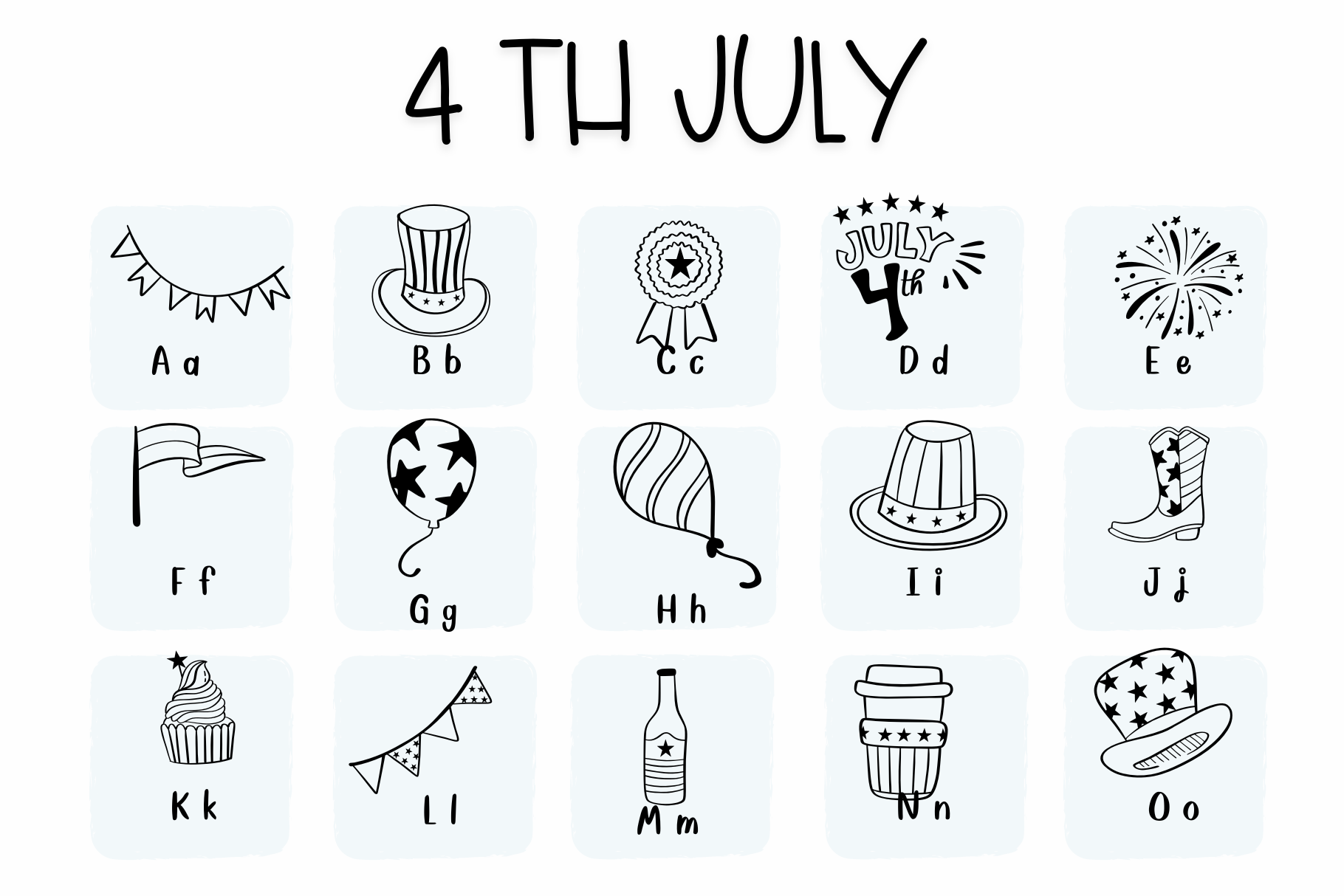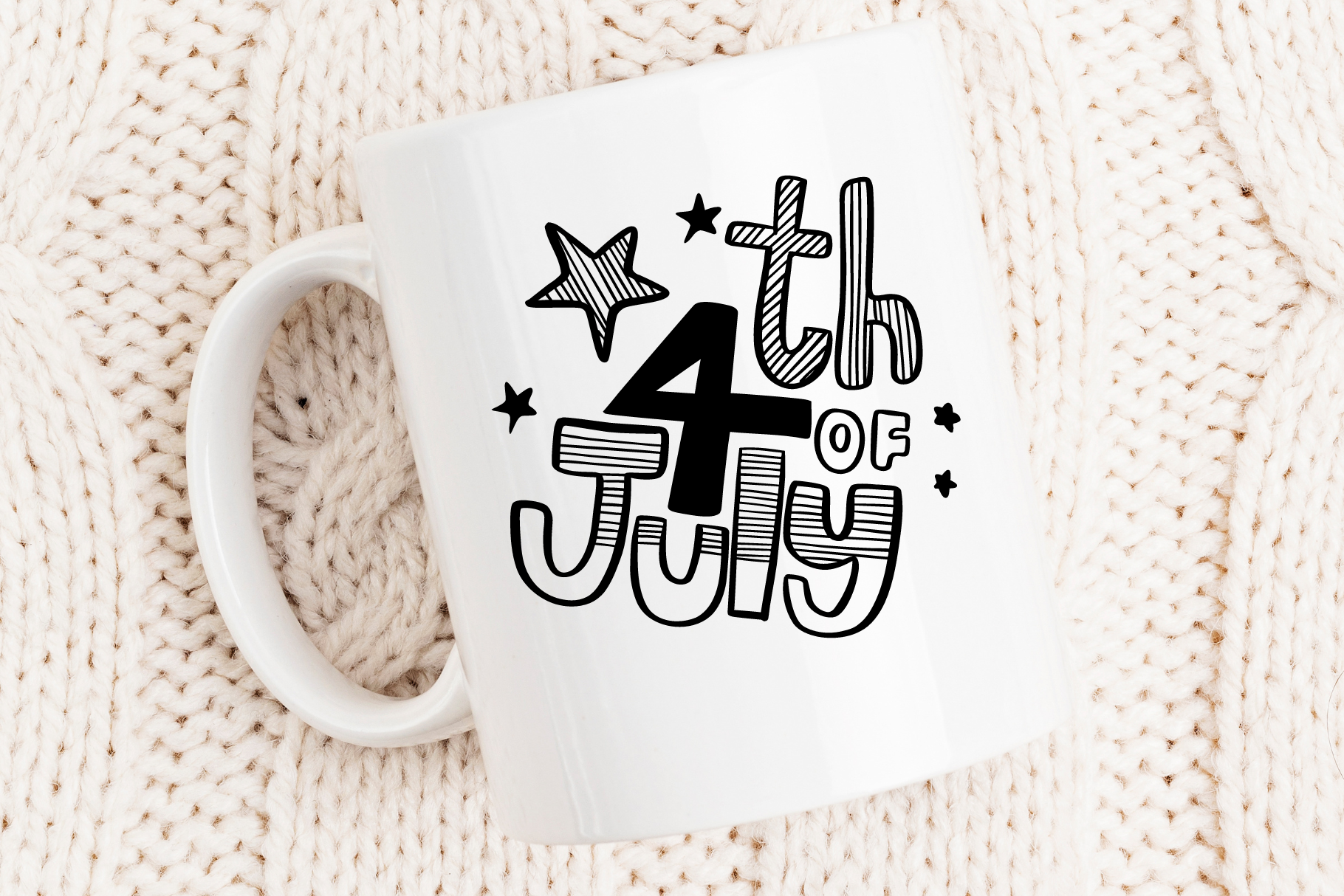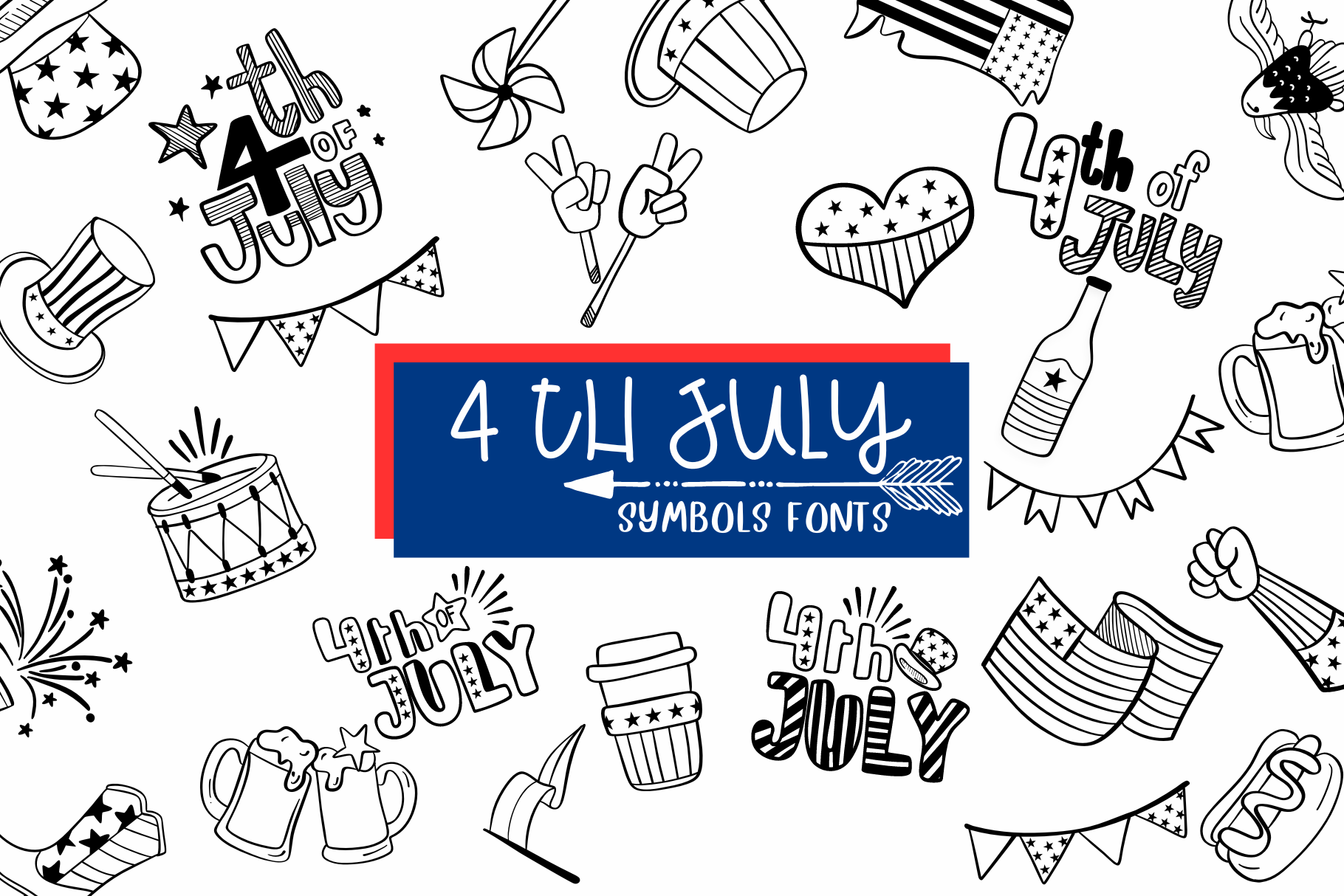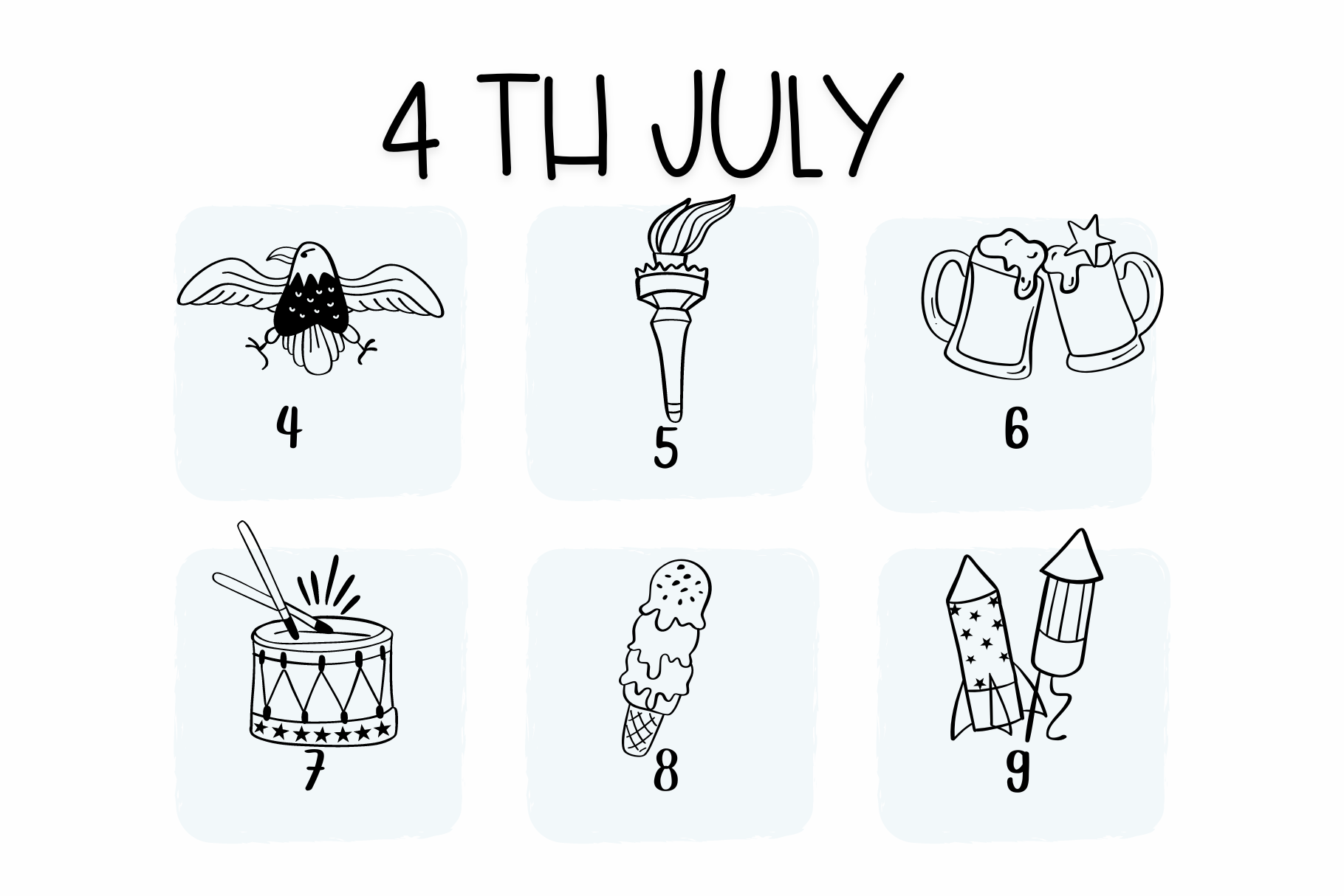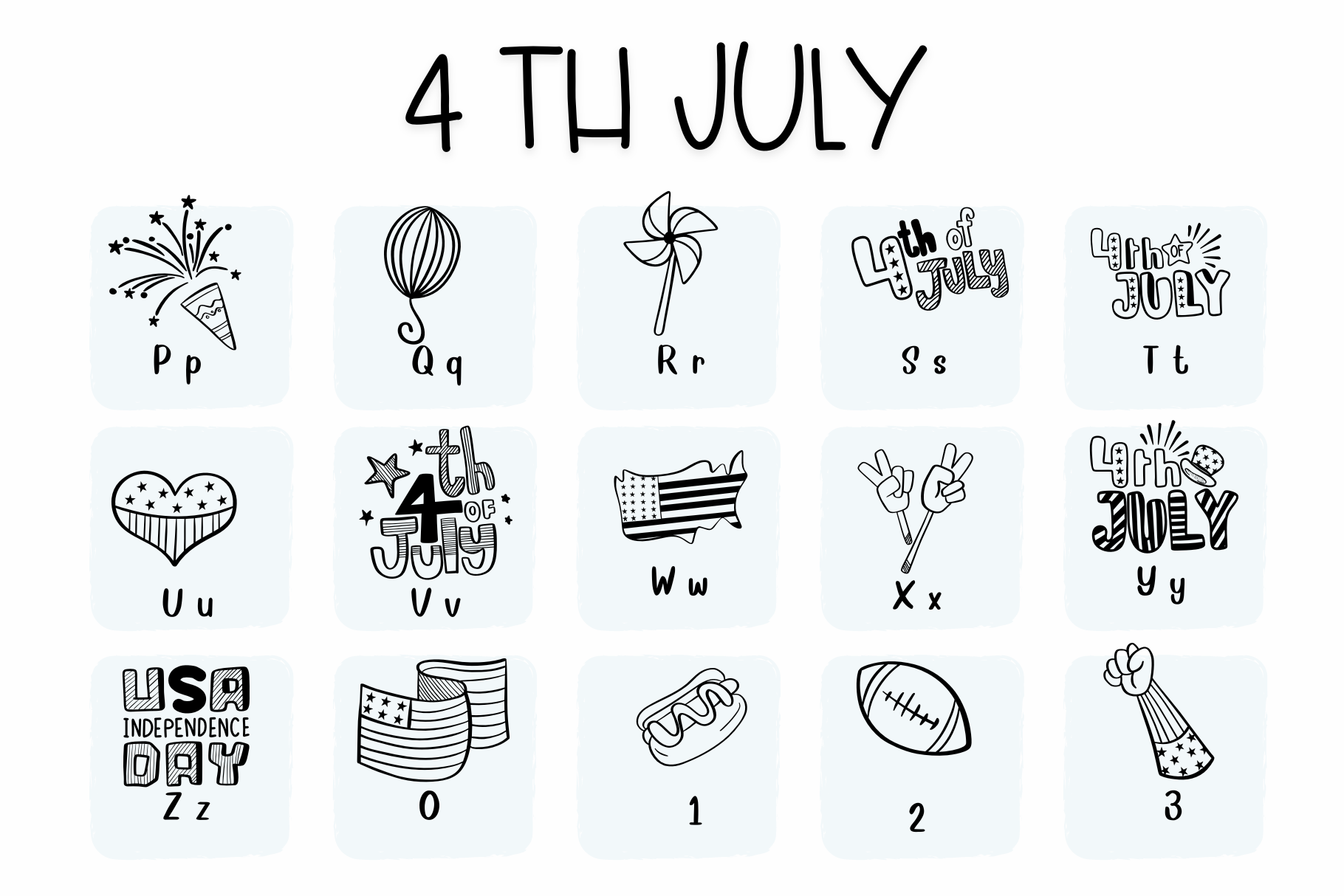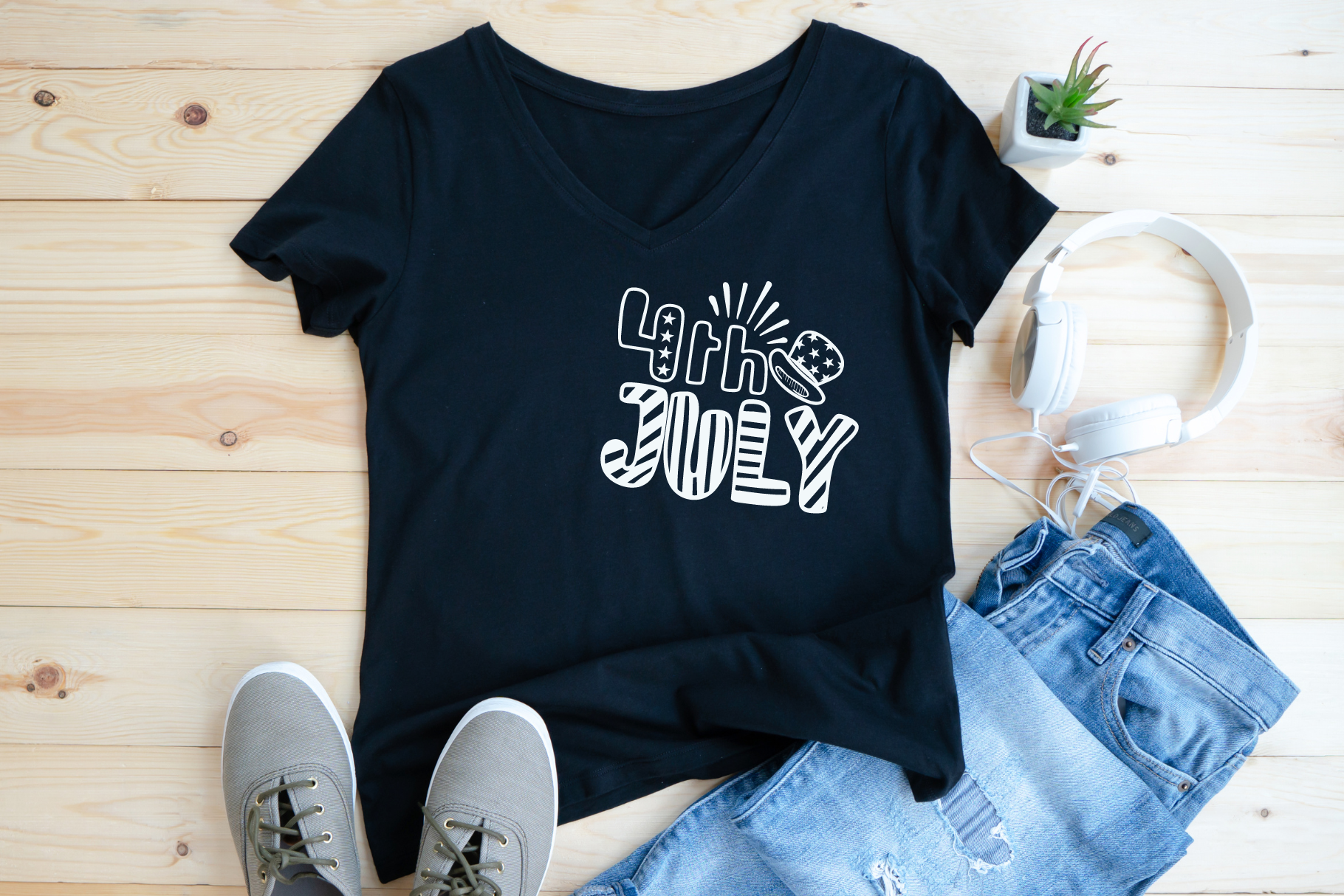
4 th July is a symbol fonts. You can use it for taking notes, writing a diary, or making greeting cards. However, you can still use it for other designs, such as banners, content, mugs, cards, shirts, stationery, social media posts, and more! Please test your characters in the font previewer below before purchase.(if something is missing or you've got a request please let me know and I'll try to add it to the next update) What do you get Format: OTF , TTF and WOFF Thank you for purchasing our product again | 4 th July | Symbols Fonts | Sirinart